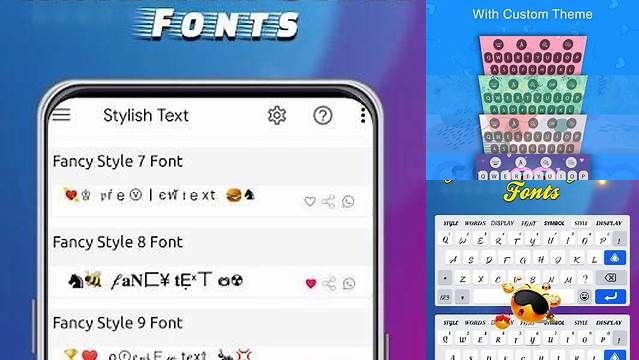
Stylish Instagram Fonts: Keyboard Mod APK Guide
Hey everyone! Ever wanted to jazz up your Instagram game with some cool, eye-catching fonts? You know, the kind that makes your bio, captions, and stories pop? Well, you're in luck! We're diving deep into the world of fonts for Instagram keyboard mod APKs – how to find them, install them, and use them to make your profile stand out. This guide is all about helping you level up your Instagram style, and we'll cover everything from the basics to some pro tips. So, buckle up, because we're about to transform your Instagram font game!
1. What Exactly Are Fonts for Instagram Keyboard Mod APKs?
So, what's the deal with fonts for Instagram keyboard mod APKs? Basically, these are modified versions of keyboard apps that include a wide array of fancy fonts you can use on Instagram. Think of it as a supercharged keyboard that goes way beyond the standard fonts your phone comes with. Instead of the same old boring text, you can use stylish, unique fonts to express yourself. It's all about making your content more visually appealing and grabbing the attention of your followers. The best part? These APKs are usually easy to install and use, making them a great option for anyone who wants to add a personal touch to their Instagram profile. It's a simple way to boost your profile's aesthetic, which is essential for standing out in today's crowded social media landscape.
The beauty of these mods lies in their simplicity and effectiveness. You don't need to be a tech wizard to use them; a few taps and you're good to go. Plus, the variety is incredible. You can find fonts that are elegant, playful, bold, or even quirky. This allows you to match your font to your content, making your posts even more engaging. Whether you're a business owner, a content creator, or just someone who loves sharing photos and stories, these modded keyboards can significantly enhance your Instagram presence. They're a fantastic tool for creating a consistent brand aesthetic or just having fun with your posts. So, if you're ready to make your Instagram profile a little more interesting, keep reading, and we'll show you how.
2. Why Use Custom Fonts on Instagram?
Okay, let's talk about why you should even bother with fonts for Instagram keyboard mod APKs. The main reason is simple: to stand out. Instagram is a visually driven platform, and if your text looks the same as everyone else's, you're likely to get lost in the noise. Custom fonts instantly make your profile and posts more unique. They grab attention and make your content more memorable. Think about it—when you scroll through Instagram, what catches your eye? Often, it's the visually appealing content, and custom fonts are a key part of that. They add personality to your profile, reflecting your brand or personal style. A well-chosen font can convey your message more effectively and attract the right audience.
Another significant benefit is the ability to create a consistent brand identity. If you're a business or a content creator, using the same fonts across your posts helps build brand recognition. When people see your unique font, they'll instantly know it's you. This consistency is crucial for building a strong brand presence and fostering trust with your audience. Furthermore, custom fonts can enhance the readability of your content. Sometimes, the standard fonts on Instagram can be a little bland or hard to read, especially in captions or bios. Custom fonts offer a variety of styles that can improve readability, making your content more accessible and engaging. So, if you're looking to boost your Instagram game, using custom fonts is a no-brainer. They make your profile more appealing, help you build a stronger brand, and make your content more effective. What’s not to love?
3. Finding the Best Fonts for Instagram Keyboard Mod APKs
Alright, let’s get down to the nitty-gritty of finding the best fonts for Instagram keyboard mod APKs. The internet is your oyster, guys, but you gotta know where to look. First, hit up Google or your favorite search engine. Type in phrases like "Instagram font keyboard APK," "custom font keyboard for Instagram," or "fancy text keyboard download." You'll find tons of options. It's like a digital treasure hunt! Once you find a few, check out their reviews. See what other users are saying. Are they easy to use? Do they have a good selection of fonts? Are there any major bugs or issues?
Next, dive into app review websites and forums. Websites that specialize in Android apps will often have in-depth reviews and comparisons of different font keyboard apps. Forums like XDA Developers can be goldmines for finding well-regarded APKs and getting advice from other users. Pay attention to the font selection. Does it have the styles you like? Does it offer a good mix of fonts, from elegant to playful? Some keyboards even allow you to create your custom fonts. Also, check for extra features. Do they offer additional customization options like themes or emojis? These extras can add to your overall experience. Finally, be sure to always download APKs from reputable sources. Avoid clicking on suspicious links or downloading from untrusted websites to keep your device safe from malware. Now, get searching, and find the perfect font keyboard for your Instagram needs!
4. Top-Rated Font Keyboard Mod APKs for Instagram
Okay, let's talk about some of the top-rated font keyboard mod APKs for Instagram. These are the ones that consistently get good reviews and offer a great user experience. One popular option is Stylish Text. This app is known for its wide variety of fonts and easy-to-use interface. You can quickly switch between fonts while typing and even preview how your text will look on Instagram. Another great choice is Fonts Keyboard. It offers a clean design and a massive library of fonts, making it simple to find something that suits your style. It also integrates well with other apps, not just Instagram.
Then there's Cool Fonts. This app focuses on a range of cool and unique fonts, great for catching attention. It allows you to create creative text designs and is perfect for adding a bit of flair to your posts. Be sure to check the reviews and compare the features of different apps to see which one is the best fit for you. Some other popular options to consider are Fontify and FancyKey. These apps provide a variety of fonts and customizable themes and sometimes even offer extra features like stickers and emojis. Before downloading any app, always read the most recent reviews, and check for any potential security concerns. Once you’ve picked your APK, you're one step closer to making your Instagram profile pop!
5. Installing and Using Font Keyboard Mod APKs: Step-by-Step Guide